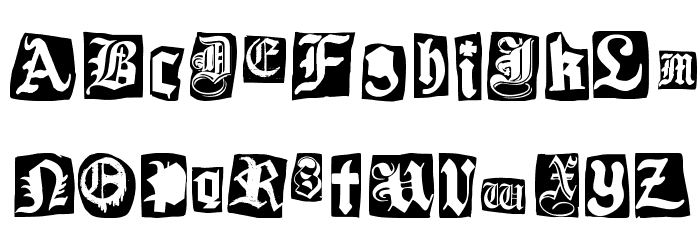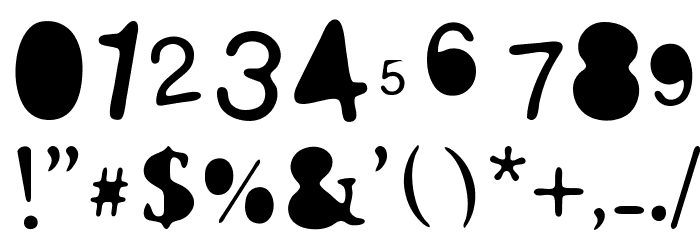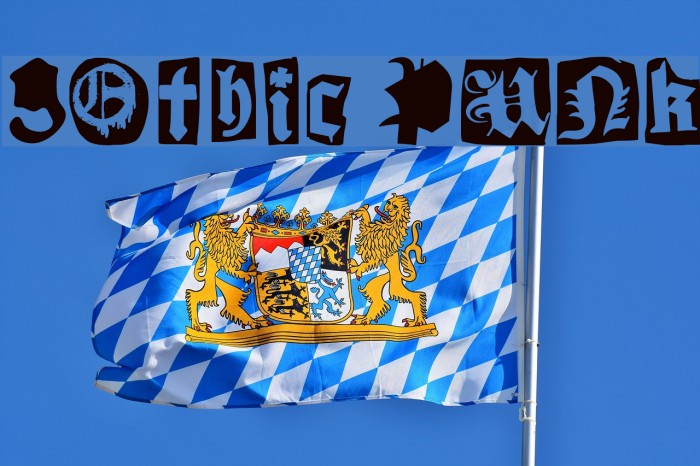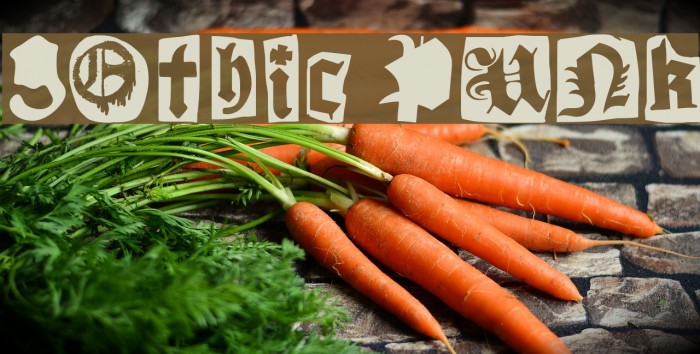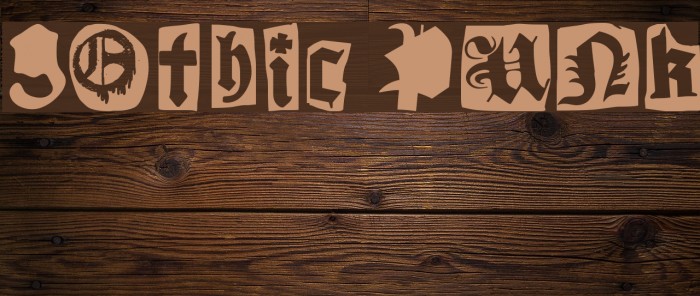
Gothic Punk Font
This font features a bold and dramatic Gothic-Punk style, characterized by its intricate and ornate letterforms. The uppercase letters exhibit a strong medieval influence with sharp edges and elaborate flourishes, while the lowercase letters maintain a consistent theme with slightly more subtle embellishments. The numbers are bold and varied, adding to the font's eclectic and rebellious aesthetic. Special characters are creatively designed, enhancing the overall punk vibe. This font is ideal for projects that require a striking and unconventional look, such as album covers, posters, and alternative branding.
A bold Gothic-Punk font with intricate, ornate letterforms and a rebellious aesthetic.